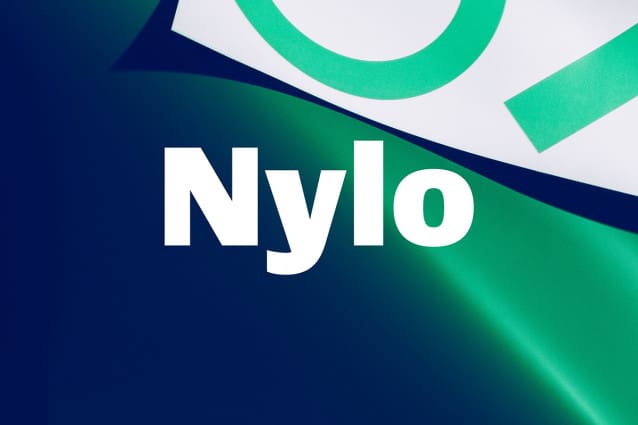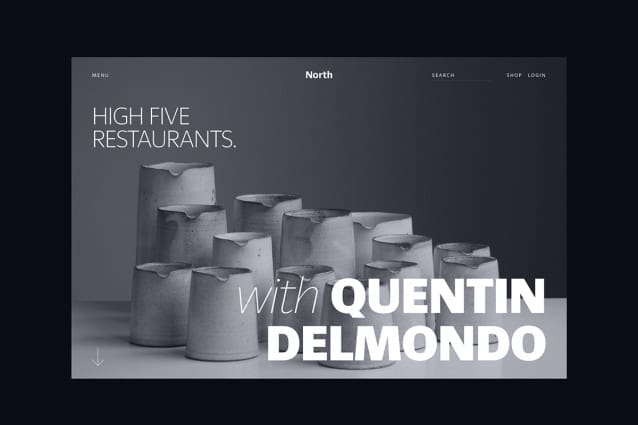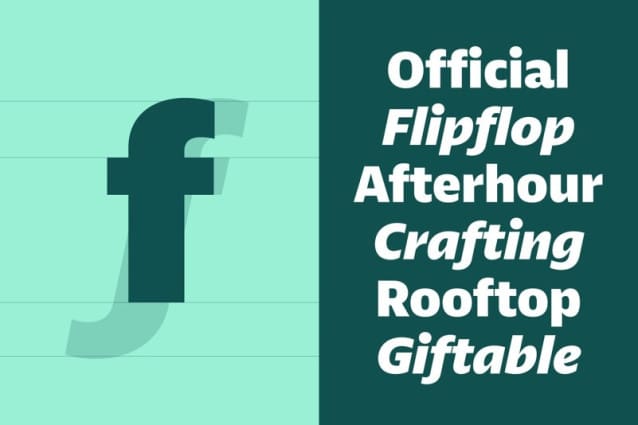
Nylo Font Family
Nylo Font Family speaks a familiar language in a distinctive voice. Ideas around clarity and tone informed all emblematic decisions. Nylo’s structure and warmth are influenced by how its character set is approached as an ensemble while exploring individual ‘creative’ opportunities as they pose themselves throughout the process. NyloFont comes with vertical terminals, large apertures and tight proportions suitable for setting in text. It works great in large and small, signage and book. It is a great workhorse with character.